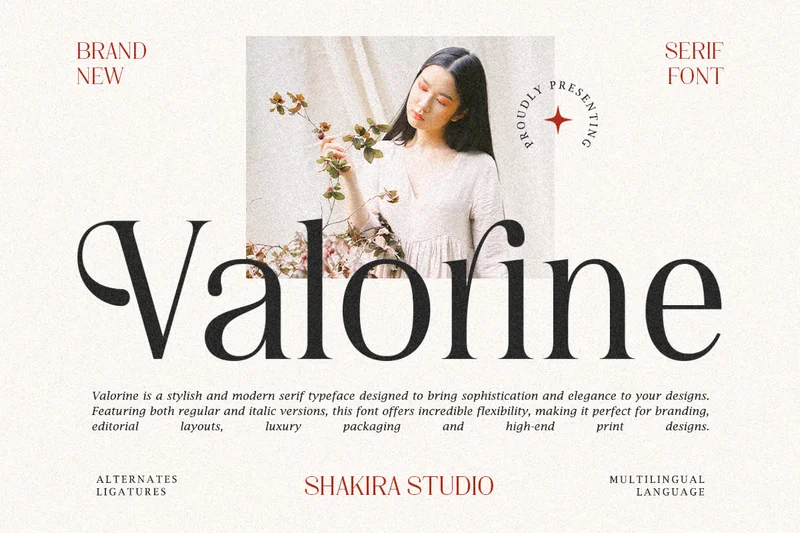
Valorine – Minimal Modern Stylish Logo Font
Valorine is a minimal modern serif font that merges simplicity with sophistication. Its clean geometry and refined ligatures bring a stylish yet professional tone, making it ideal for fashion branding, magazine headlines, packaging, and elegant logos. Each curve is designed for perfect balance — creating timeless beauty in every composition.
Regular & Italic
Alternates & Ligatures